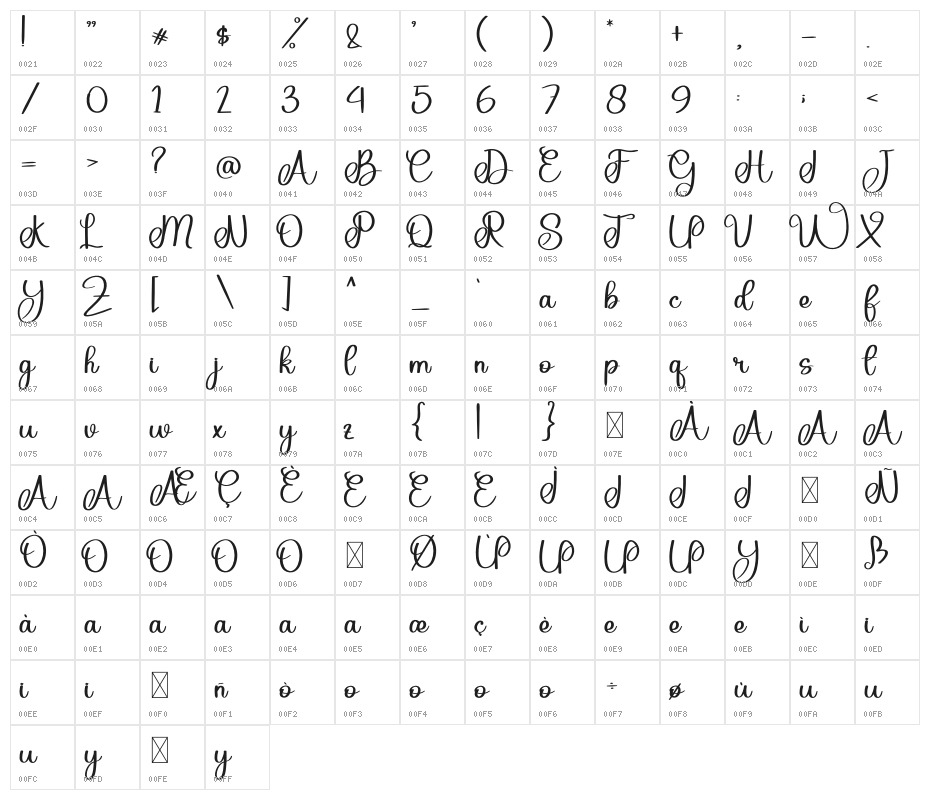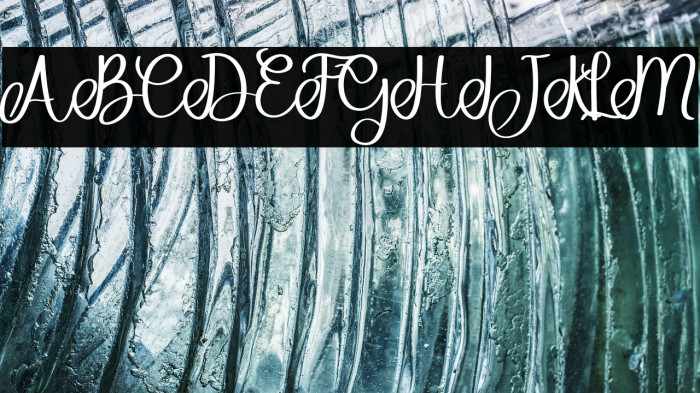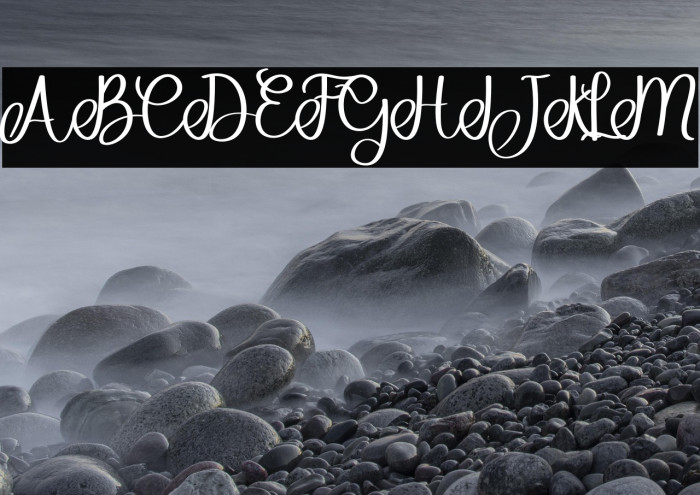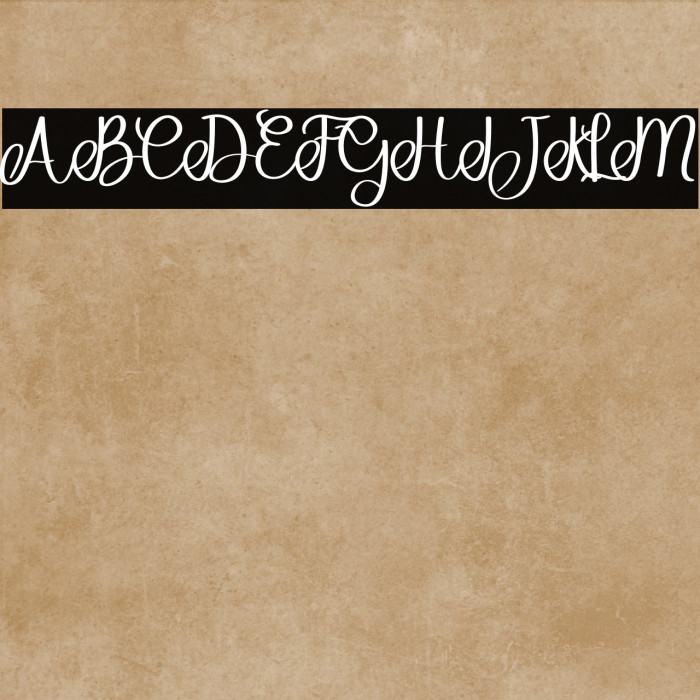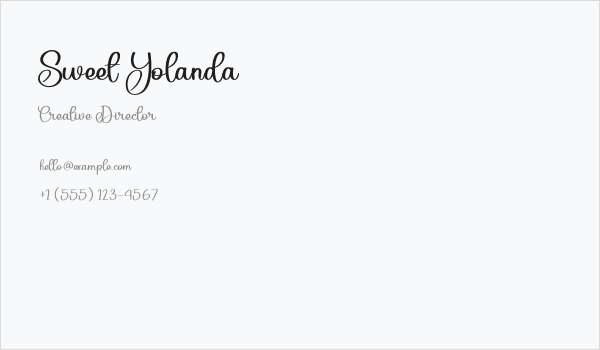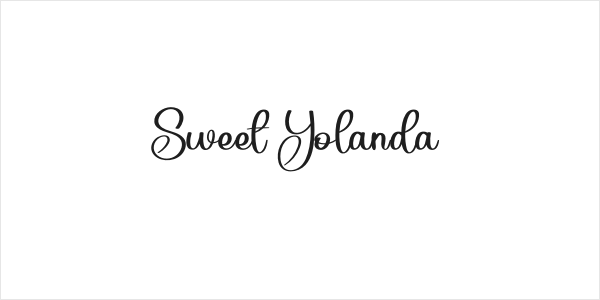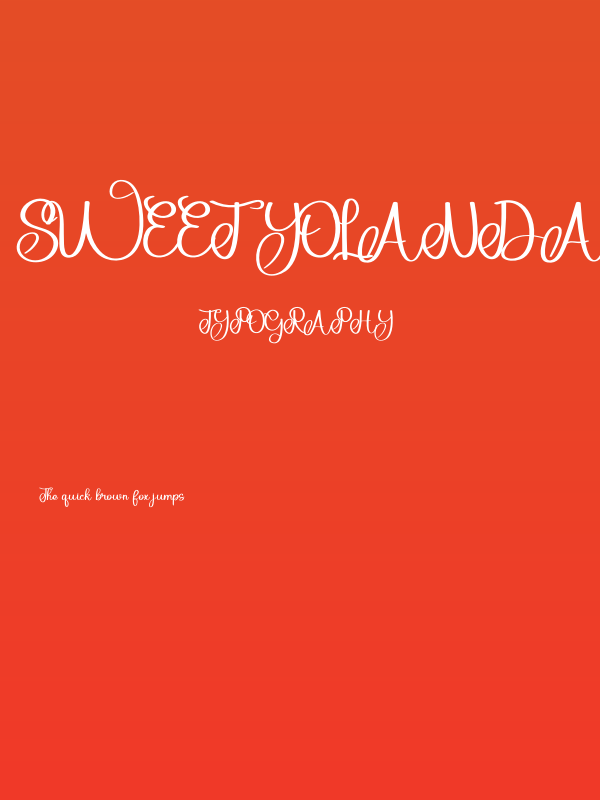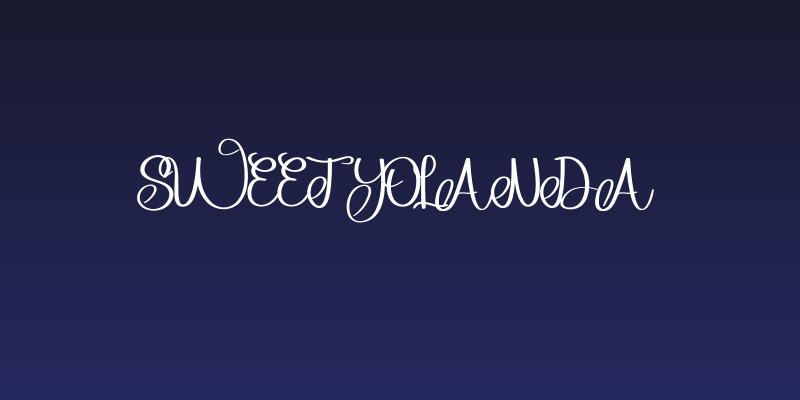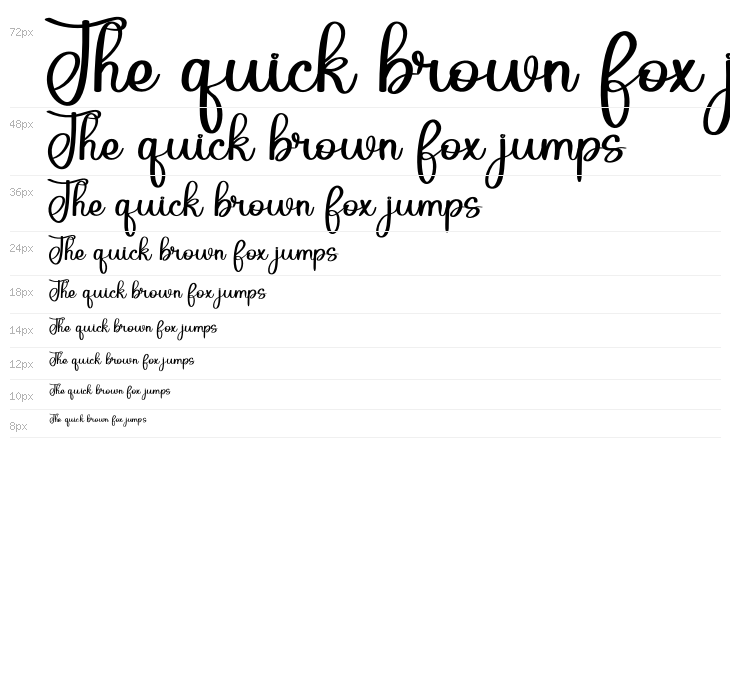
Sweet Yolanda Font
Sweet Yolanda Description
A playful and elegant script font with smooth curves and a handwritten style, featuring connected letters and a flowing appearance.
| Proposed Projects | Invitations, greeting cards, branding, and decorative projects. |